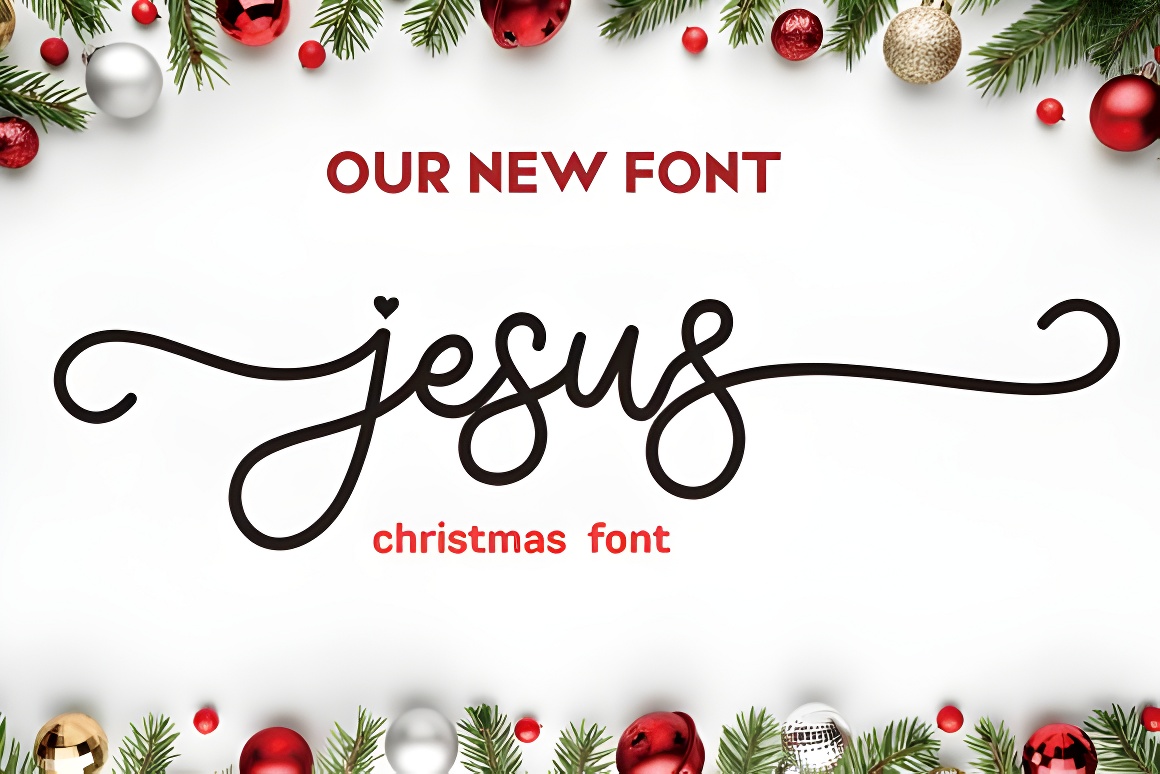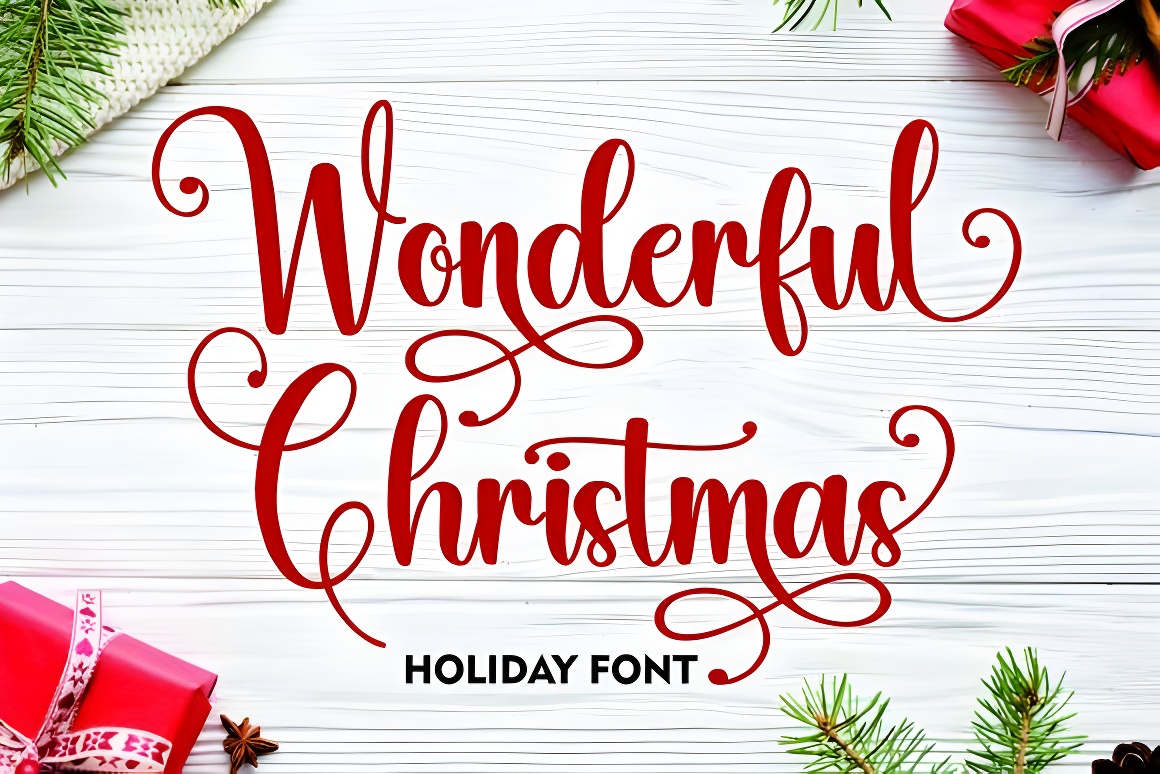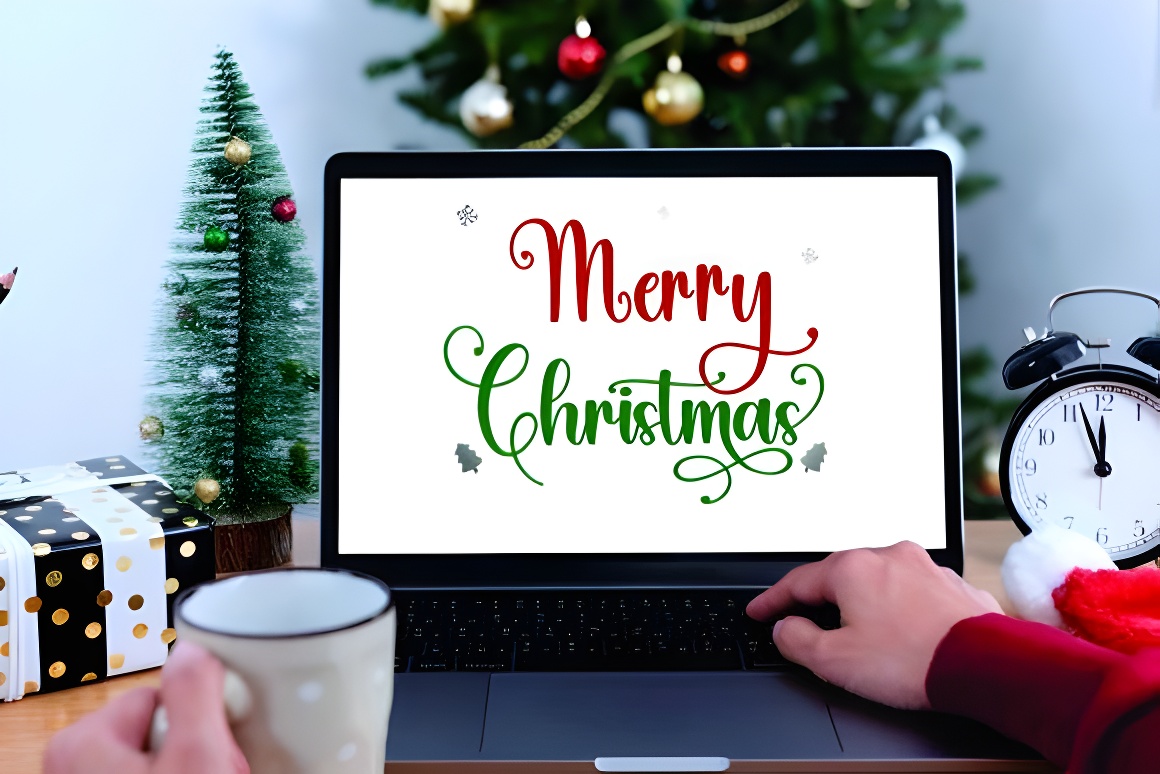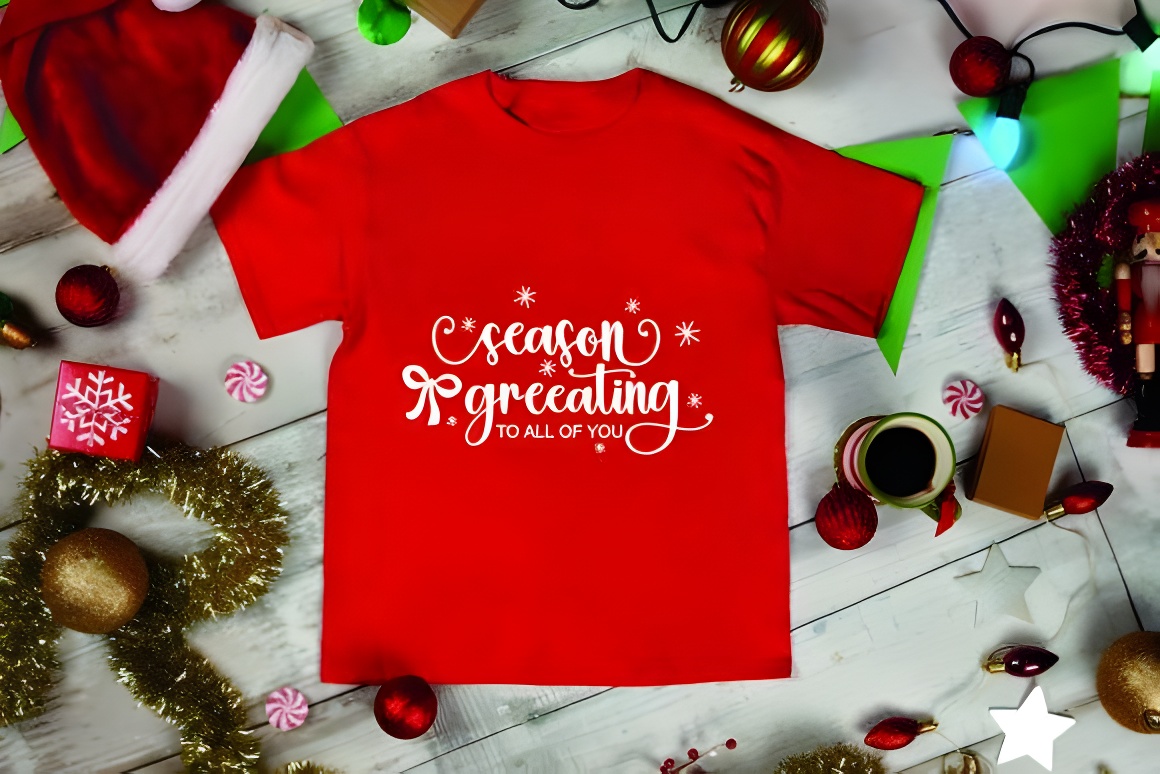
Elegant Christmas Font | Holiday Handwriting Calligraphy Style
Charming handwritten Christmas font perfect for wedding invitations, greeting cards, logos & business branding. Features elegant calligraphy swashes & PUA-encoded glyphs for professional designs. Instant download!